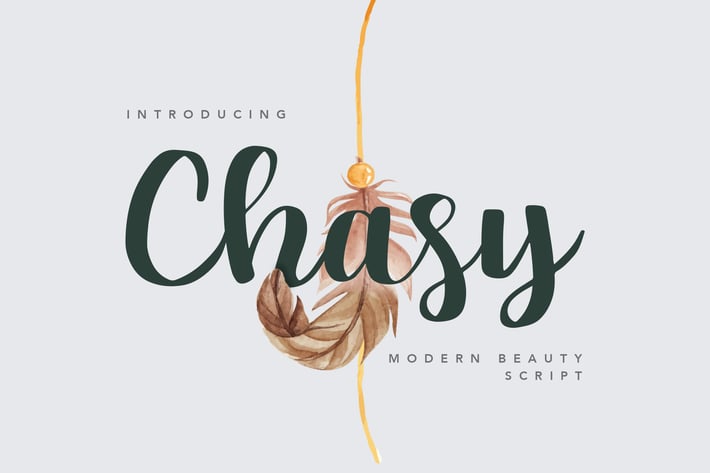
Chasy Beauty Script Font
A stylish, modern and beautiful script font with an elegant feel. Chasy is perfect for display projects such as quoted text, product name, logo, presentation, coffee-theme, and product packaging. It's also perfect for fashion and beauty themed - or a stylish text overlay to any background image.
+ Uppercase & Lowercase letters
+ Numbering and Punctuation